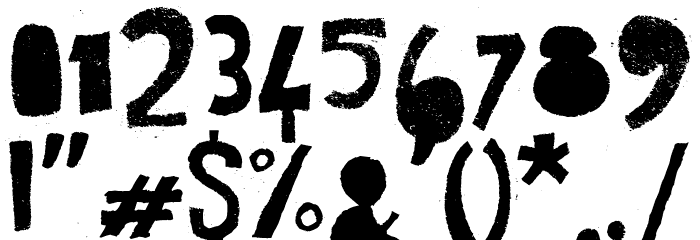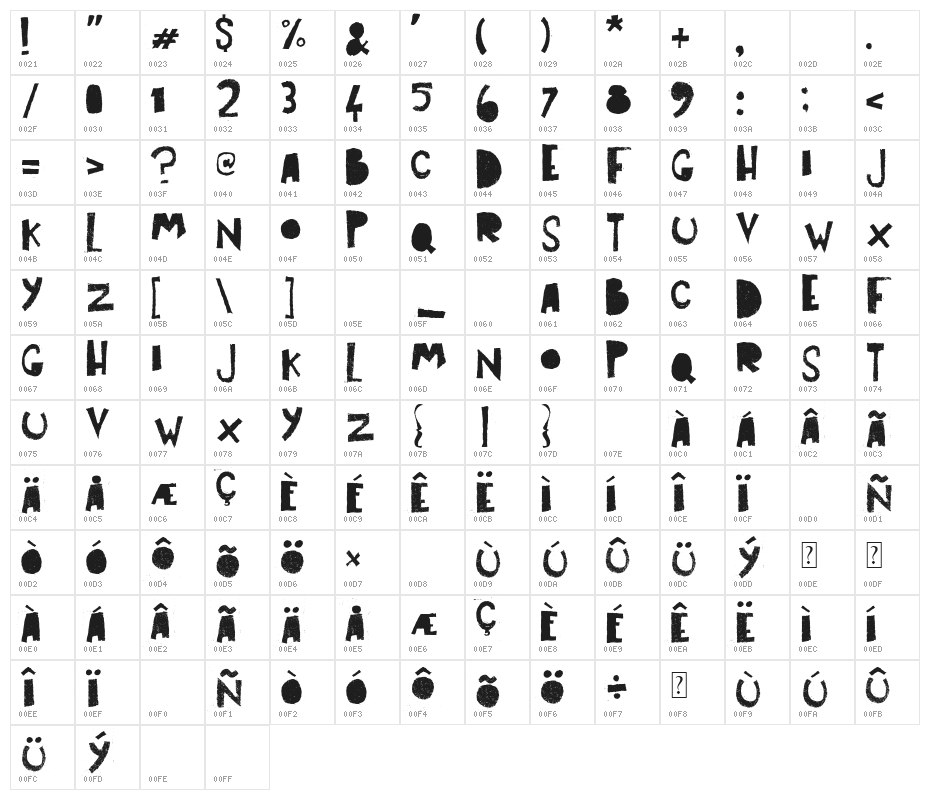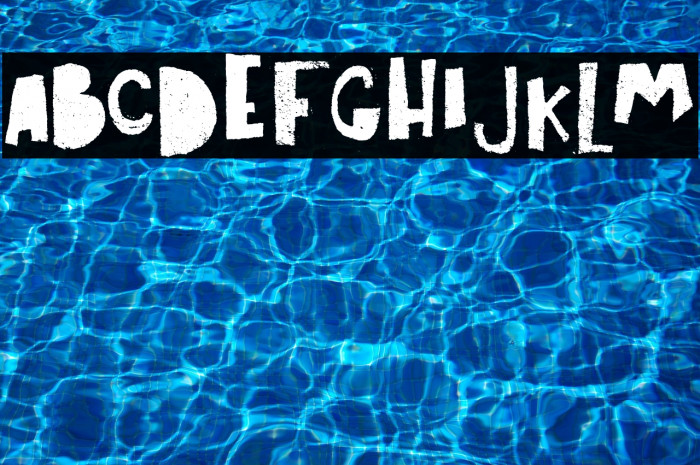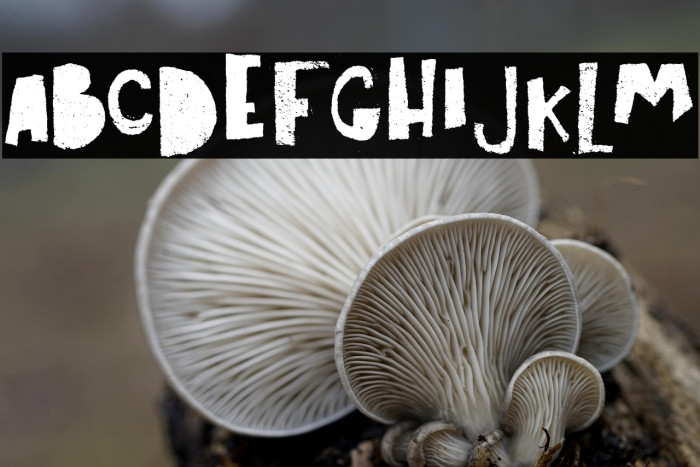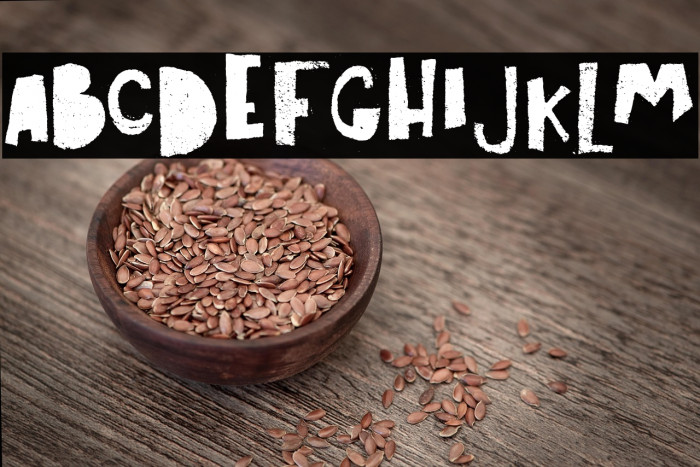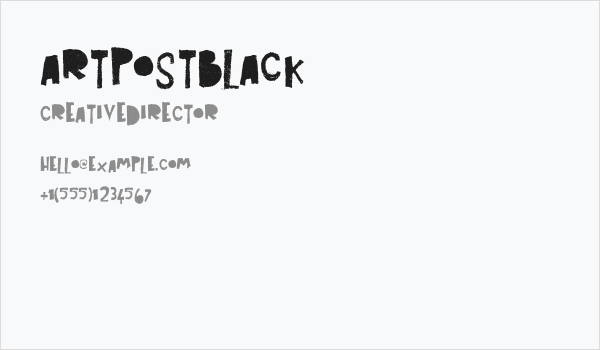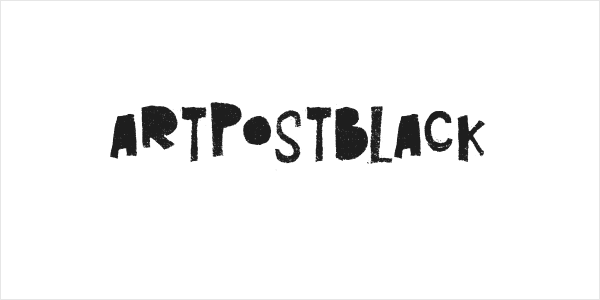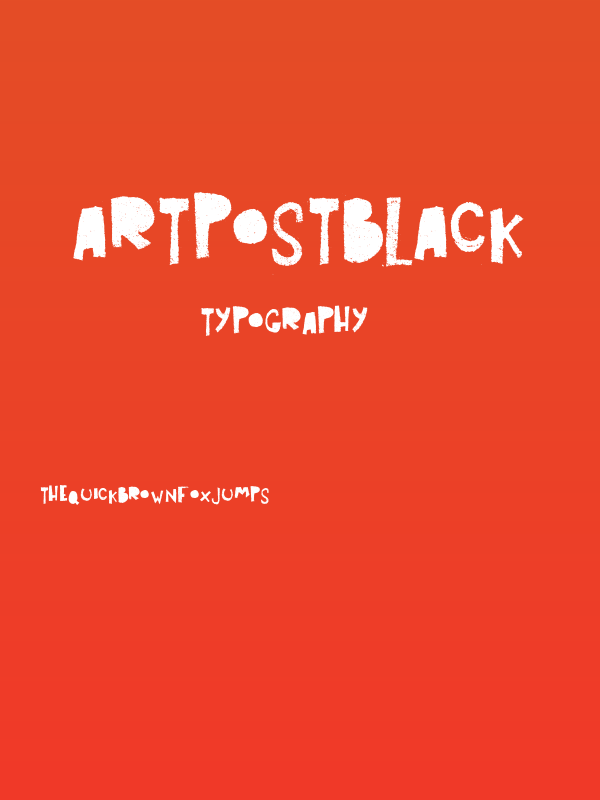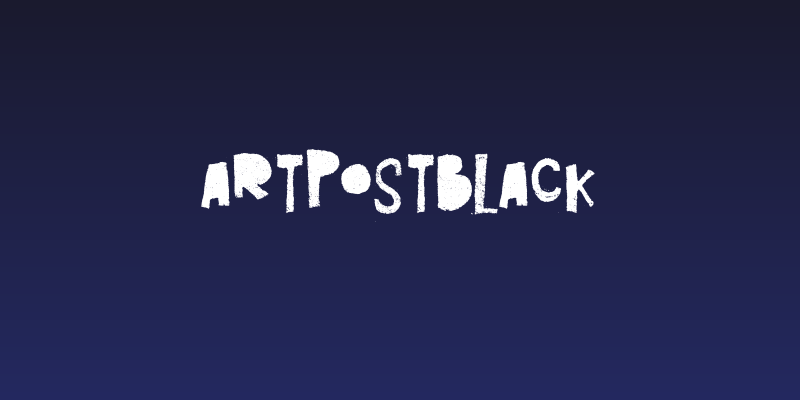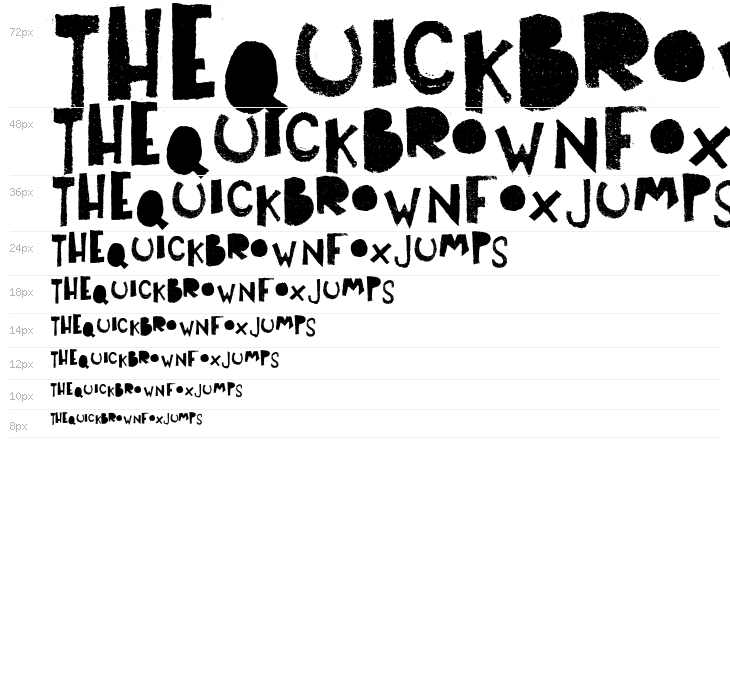
Art Post black Font
Art Post black Description
This font features a bold, hand-drawn style with a rough, textured appearance, reminiscent of vintage poster art. The characters are irregular and playful, with varying stroke widths that give it a dynamic and energetic feel. The uppercase letters are bold and prominent, while the lowercase letters maintain the same playful aesthetic. Numbers and special characters follow the same design, ensuring consistency across all elements. The font's unique style makes it stand out, offering a creative and artistic vibe.
| Overall Style | Vintage, Artistic |
| Use Case | Headlines, Posters, Artistic Branding |
| Proposed Projects | Ideal for creative projects such as posters, album covers, children's books, and artistic branding. |